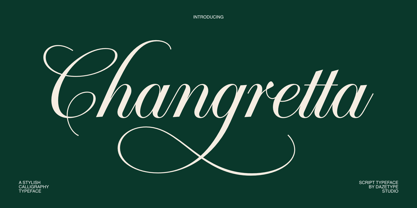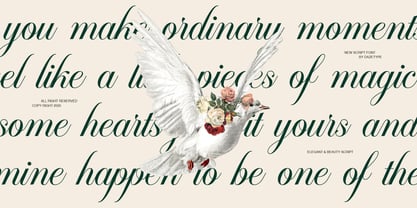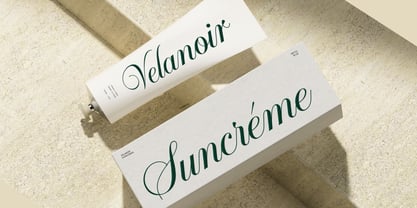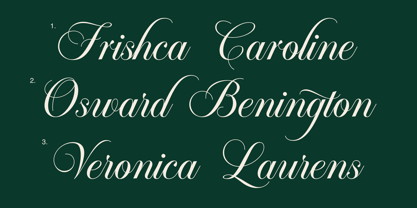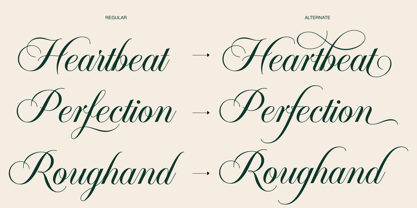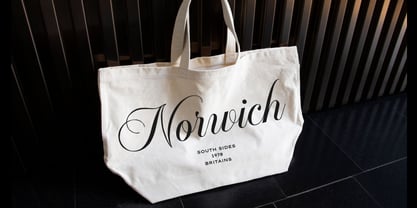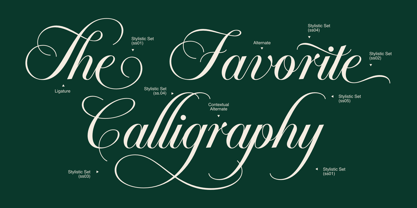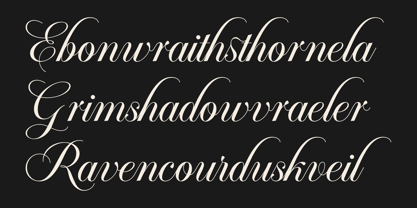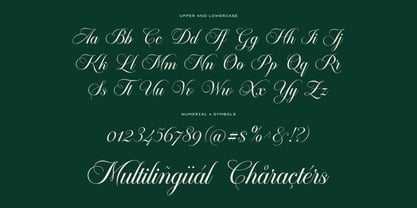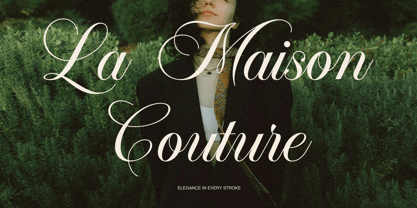
Changretta
by Daze Type Std
The Changretta Font Family was designed by Bagus Panji Asmoro and published by Daze Type Std. Changretta contains 1 styles. More about this family
Changretta is a hyper-luxury script typeface crafted for designers who seek elegance with an unmistakably couture presence. Its elongated curves, ornamental flourishes, and rhythmic calligraphic flow bring a sense of grandeur and refined artistry to any project. From high-fashion logos and perfume packaging to premium wedding suites and exclusive editorials, Changretta offers versatility while maintaining a polished, aristocratic impression. Complete with stylistic alternates, long swashes, ligatures, and multilingual support, this typeface ensures every composition appears elevated, iconic, and visually unforgettable. Feature List • Stylistic Alternates (salt) Multiple alternate characters for more expressive and couture-style letterforms. • Stylistic Sets (ss01–ss05) Extended variations for capital letters, ending forms, and decorative shapes. • Swash (swsh) Long ornamental swashes designed for logos, headlines, and premium layouts. • Ligatures (liga & dlig) Natural ligatures that enhance script flow and avoid awkward collisions. • Contextual Alternates (calt) Automatic adjustment of letter connections for smoother reading. • Multilingual Support Supports Western, Central, and Eastern European languages. • PUA Encoded All alternates accessible via Character Map without design software.
Designers: Bagus Panji Asmoro